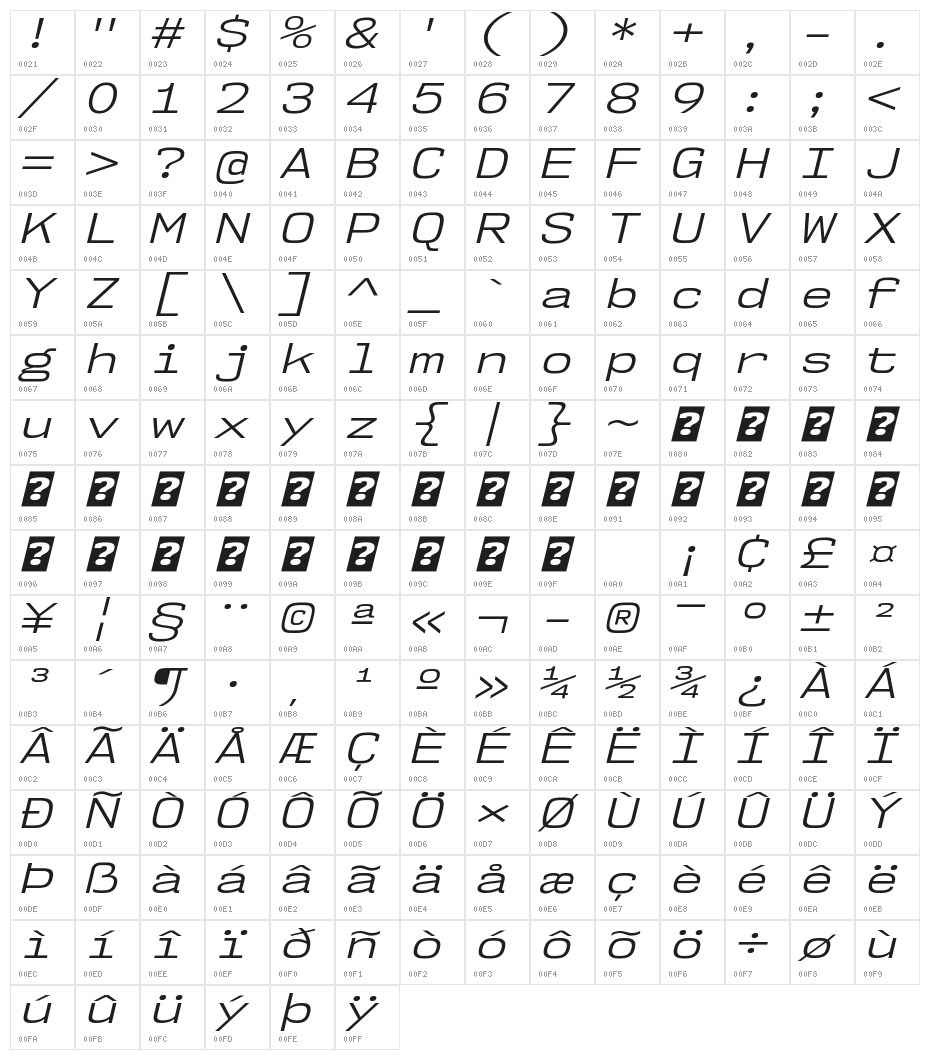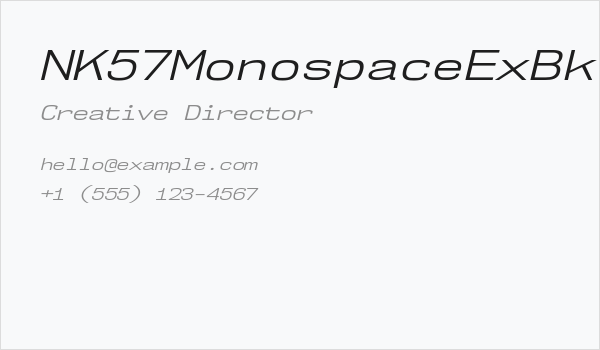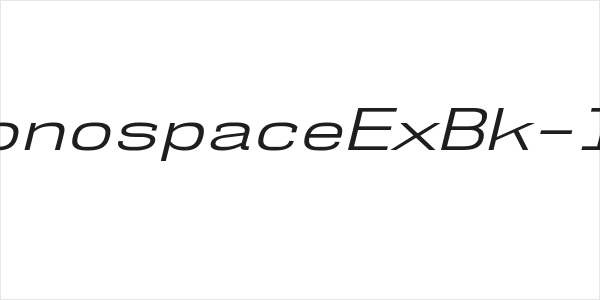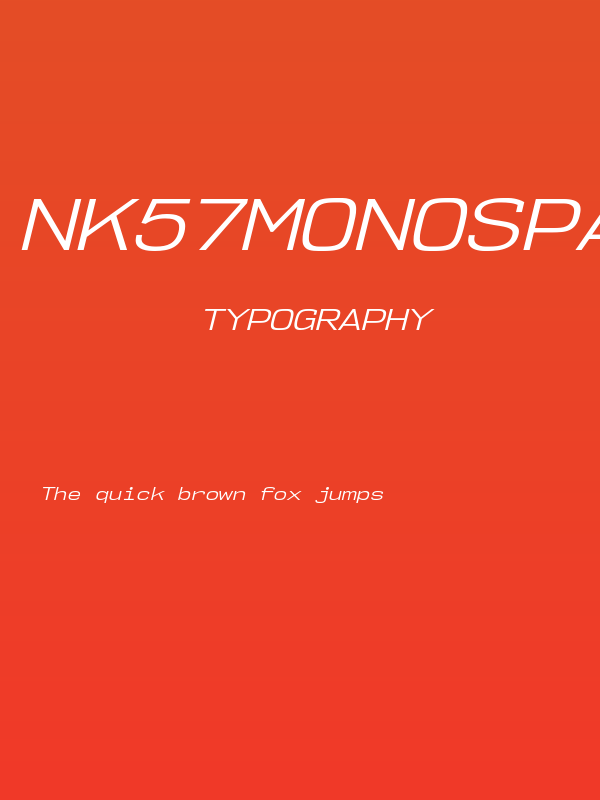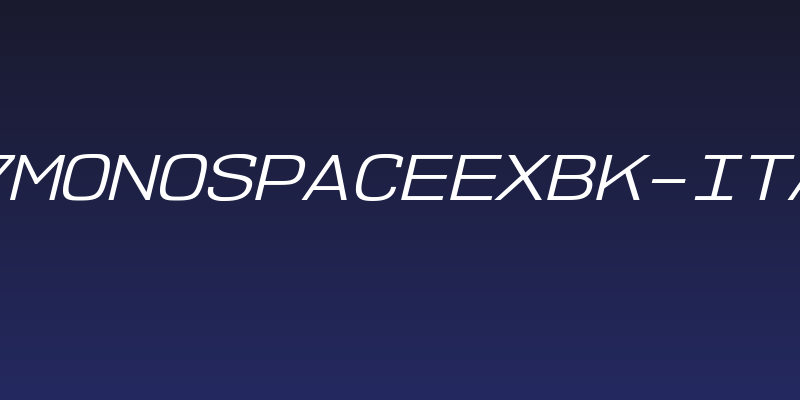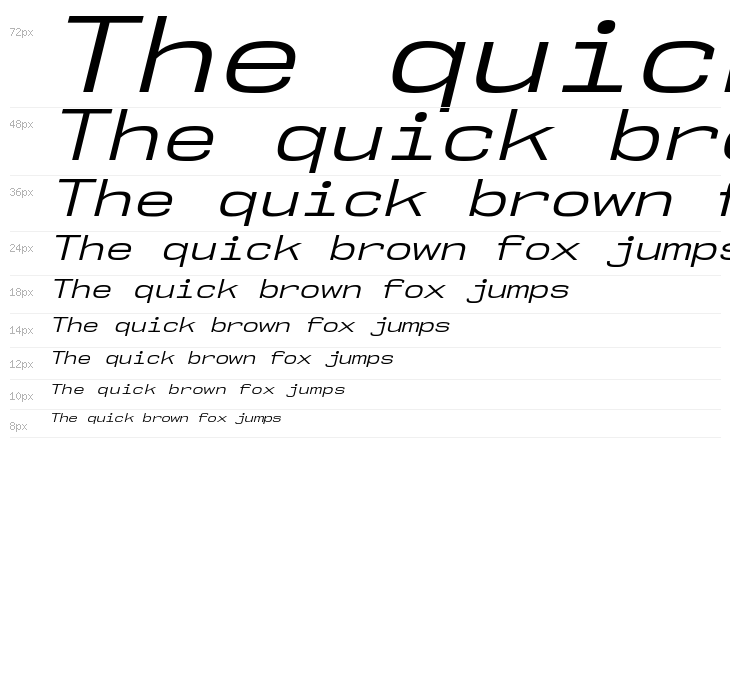
NK57MonospaceExBk-Italic Font
NK57MonospaceExBk-Italic Description
This font is a sleek and modern monospaced typeface with a distinct italic style. Each character is evenly spaced, providing a uniform appearance that is ideal for coding and technical documents. The italic slant adds a dynamic and contemporary feel, making it stand out from traditional monospaced fonts. The characters are clean and legible, with a slight curvature that softens the overall look. The numbers and special characters are designed to match the alphabet's style, ensuring consistency across all text. This font is perfect for those who need precision and clarity in their work, while also wanting a touch of style.
| Use Case | Coding, Technical documents |
| Proposed Projects | Ideal for coding, technical documentation, and any project requiring precise alignment and readability. |